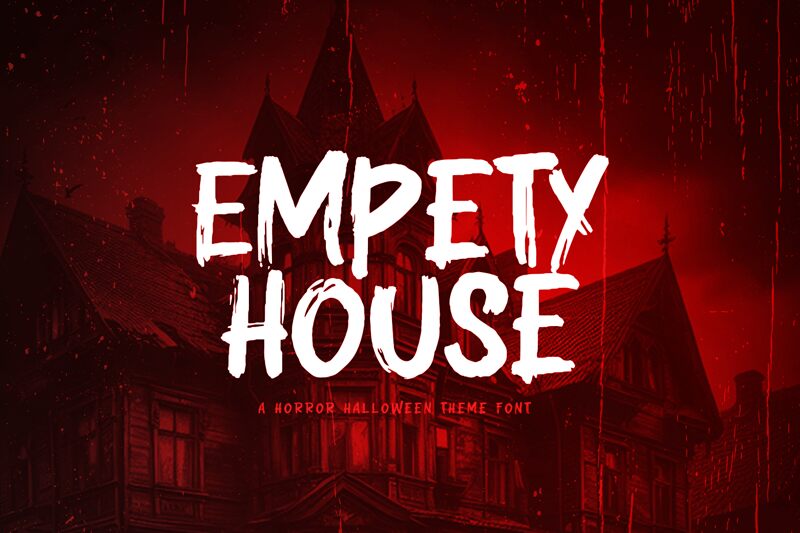
Empety House
Empety House font, designed by Khurasan, evokes a powerful blend of unsettling beauty and raw energy. Its brush style presents a dramatic flair, with strokes that appear both bold and almost chaotic, capturing the essence of fear and intrigue. The exaggerated characters feature sharp contrasts between thick and thin lines, creating a striking visual impact that draws the eye.
This font is ideal for captivating title designs in horror-themed projects, Halloween promotions, or artistic pieces that seek to evoke strong emotions. With its distinctive aesthetic, Empety House effortlessly enhances branding for unique events or merchandise geared towards unconventional audiences. Whether used in print or digital formats, it creates a memorable experience that lingers in the mind long after viewing.